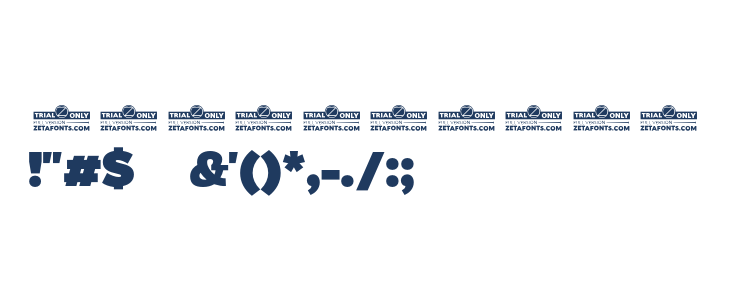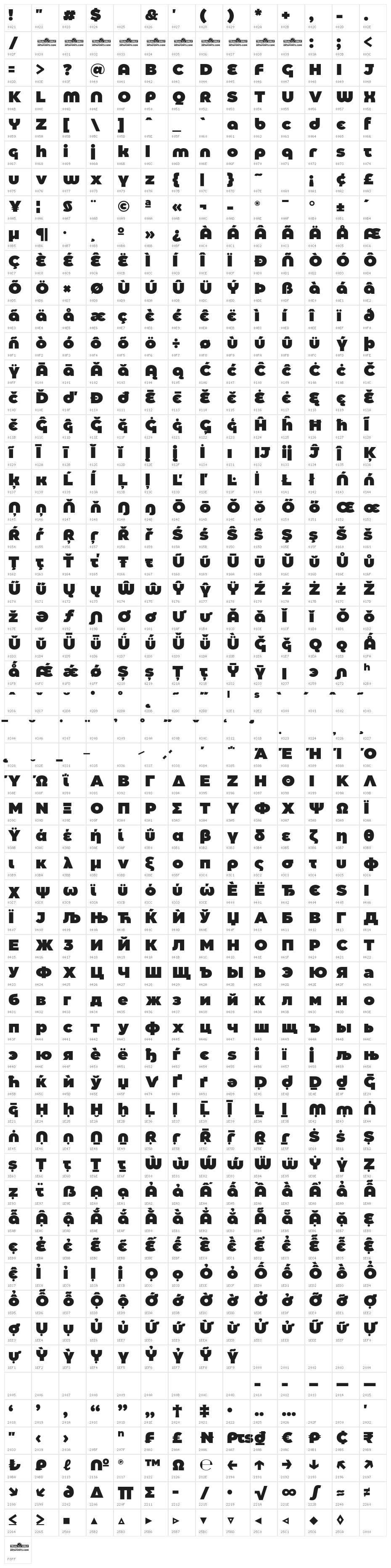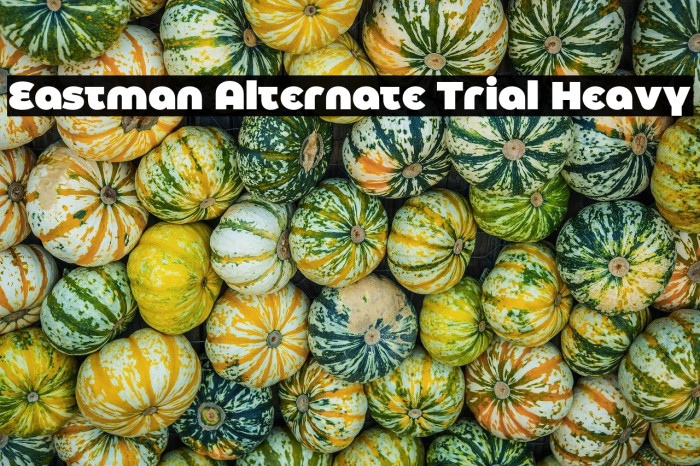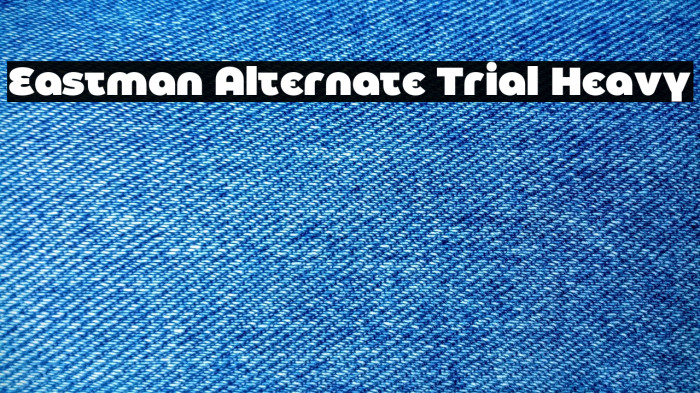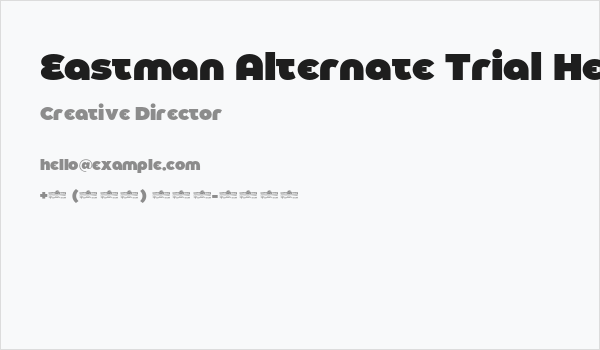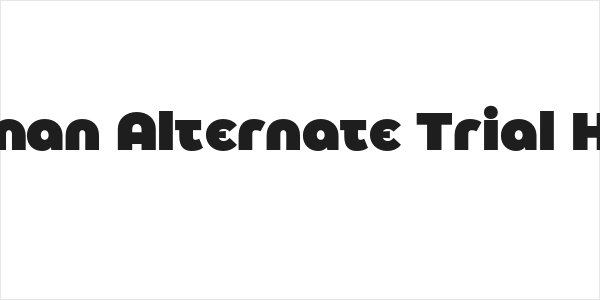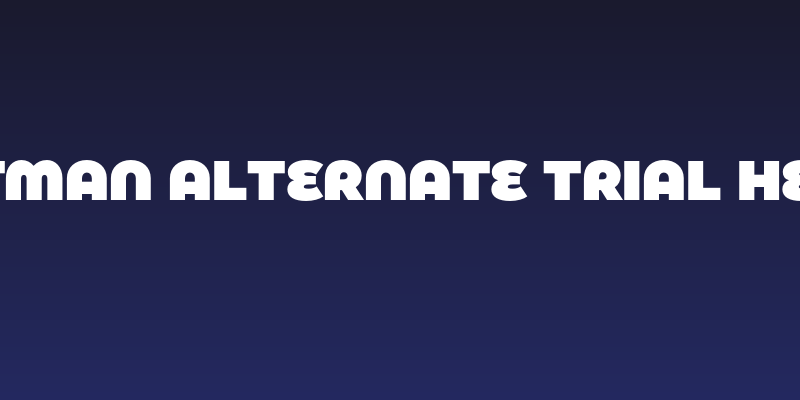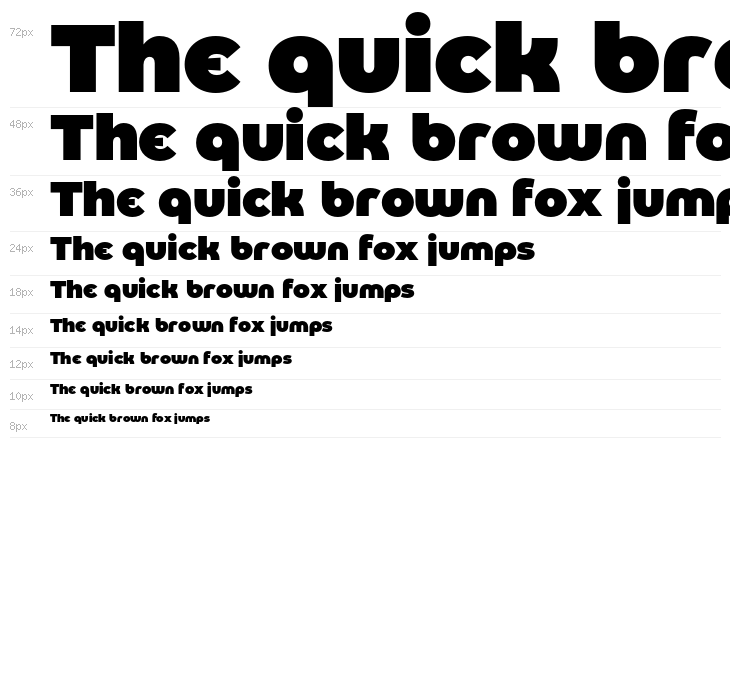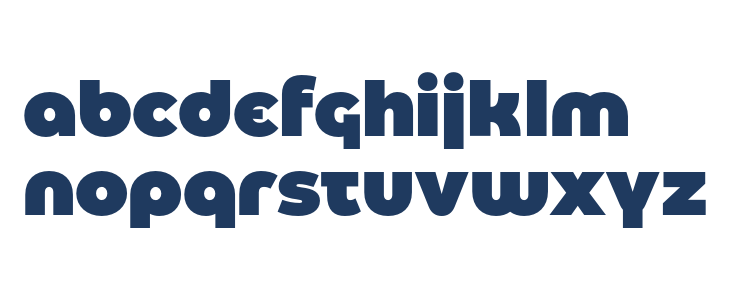
Eastman Alternate Trial Heavy Font
Eastman Alternate Trial Heavy Description
This font features bold, geometric letterforms with a strong presence. The characters are constructed with consistent stroke widths, creating a uniform and cohesive appearance. The uppercase letters exhibit a modern and robust style, while the lowercase letters maintain a similar aesthetic, ensuring readability and visual impact. The font includes a full set of numerals and a variety of special characters, making it versatile for various design needs. Its bold nature and clean lines make it suitable for attention-grabbing headlines and impactful graphic design projects.